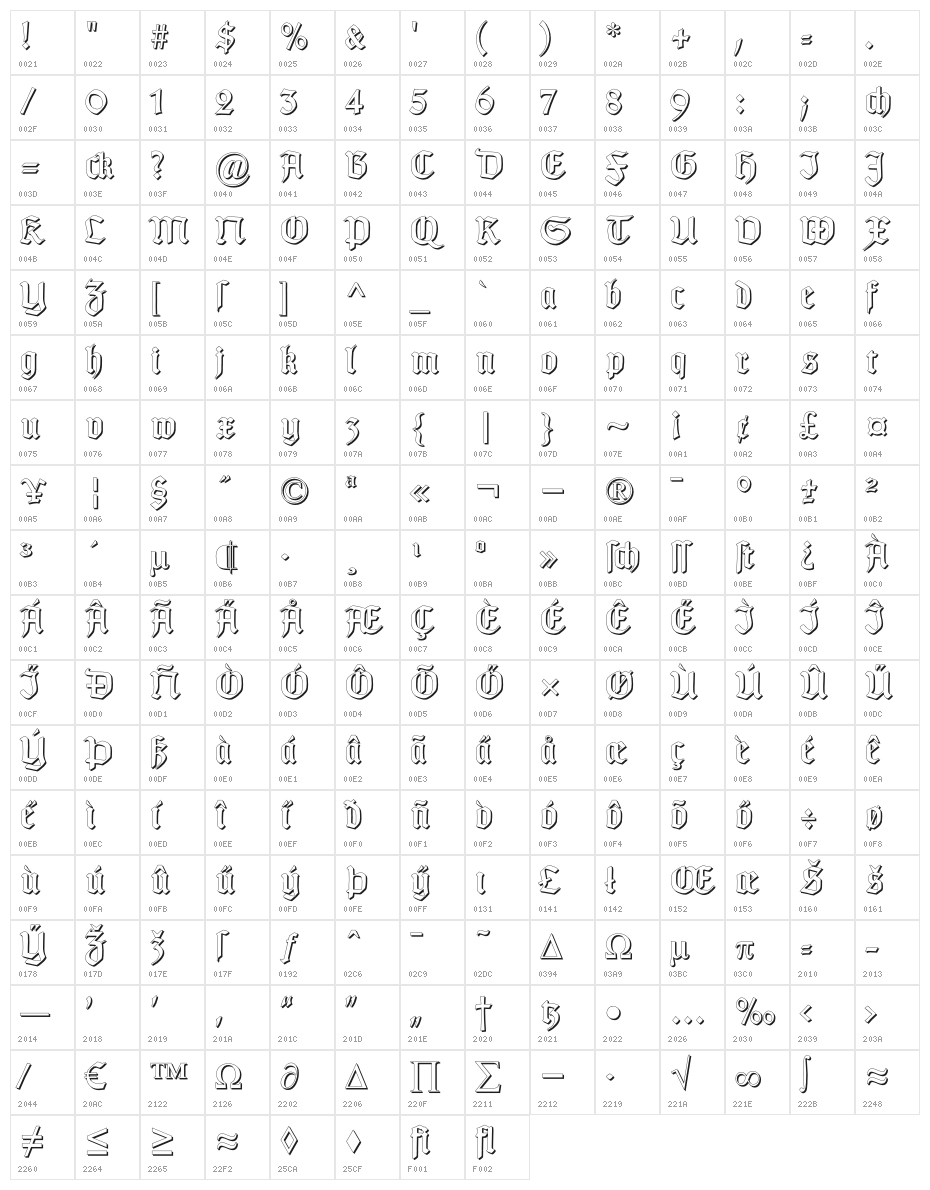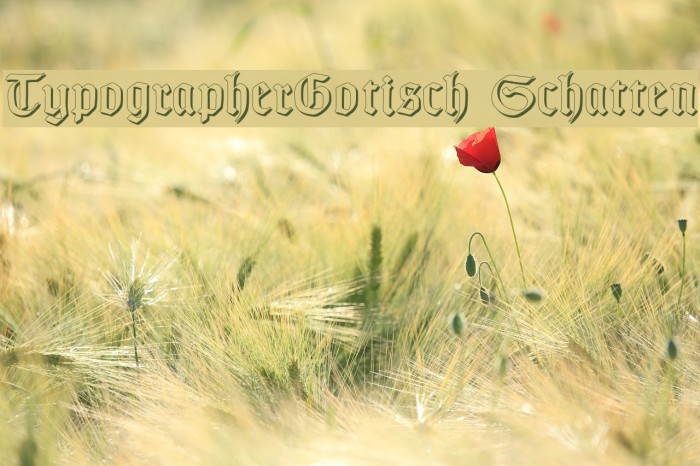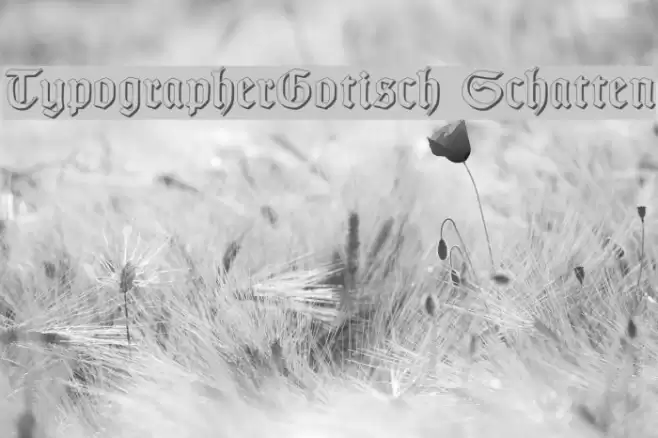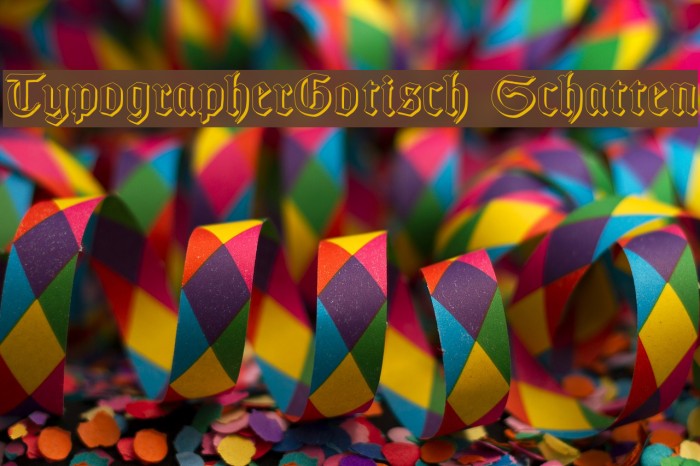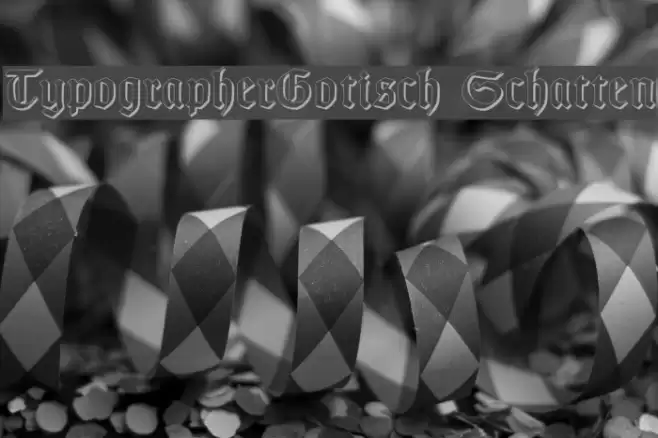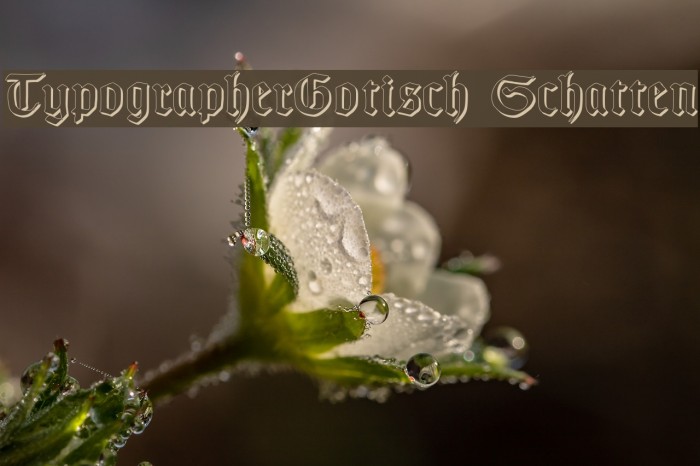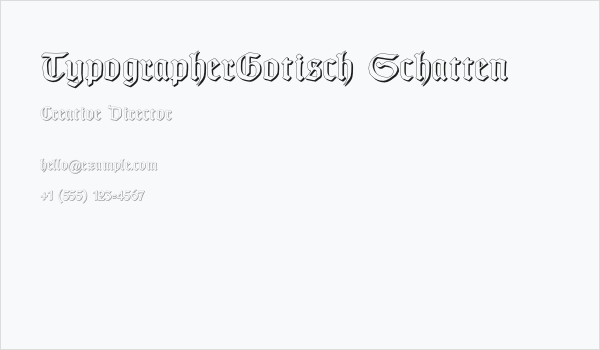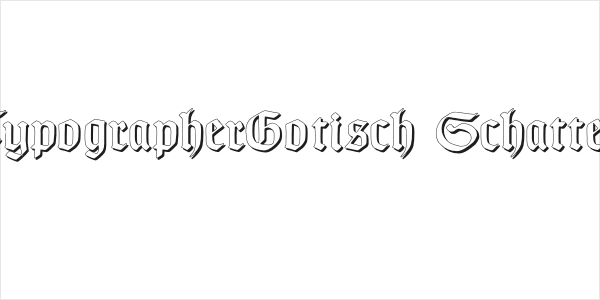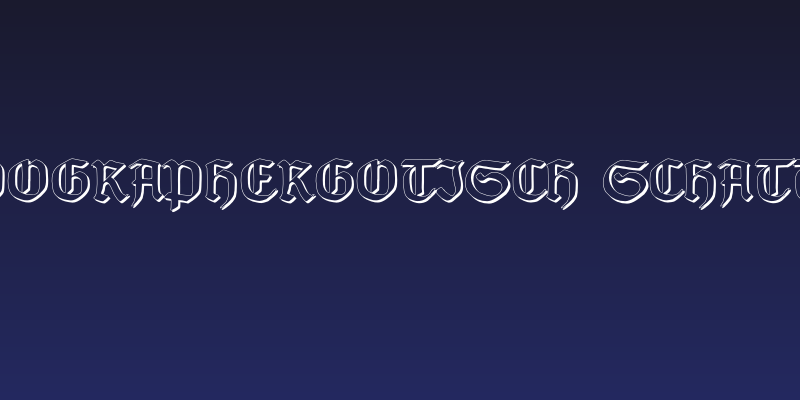
TypographerGotisch Schatten Font
| カテゴリ | Gothic |
| 用途 | Headlines, Logos, Decorative text |
| おすすめプロジェクト | Suitable for historical documents, event posters, book covers, and branding that requires a traditional or formal aesthetic. |